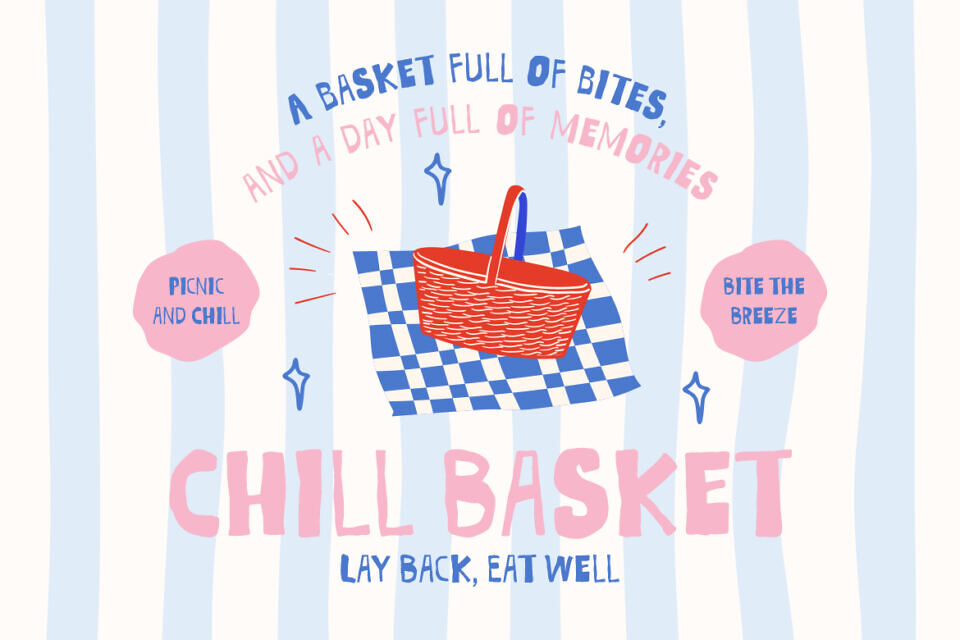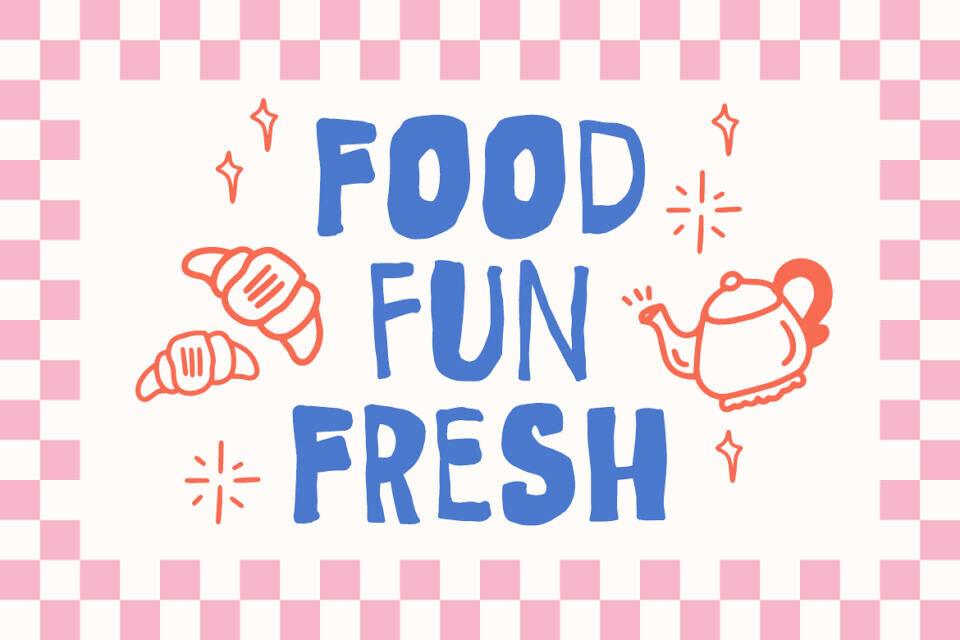
Ugly Notes Quirky Ugly Doodle Font brings an authentic hand-drawn spirit to your creative projects. Each letter has an uneven, organic shape that gives the font a natural and spontaneous feel. The strokes are thick and slightly irregular, creating a sense of warmth and imperfection that feels personal and approachable.
The tall, rounded forms give enough balance for readability while keeping a loose, casual rhythm. Ugly Notes Quirky Ugly Doodle Font captures the joy of handwritten doodles—expressive, free, and delightfully imperfect. Its charm lies in the way every letter feels unique, as if written with playful enthusiasm.